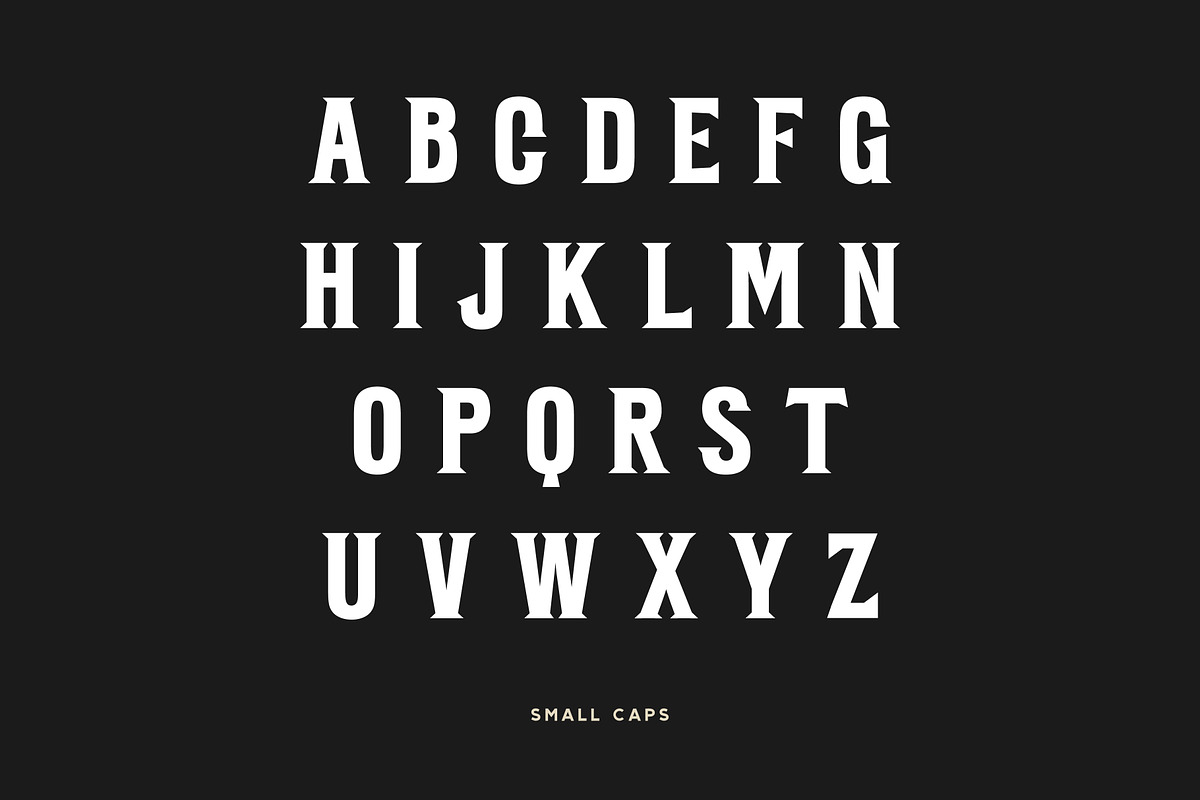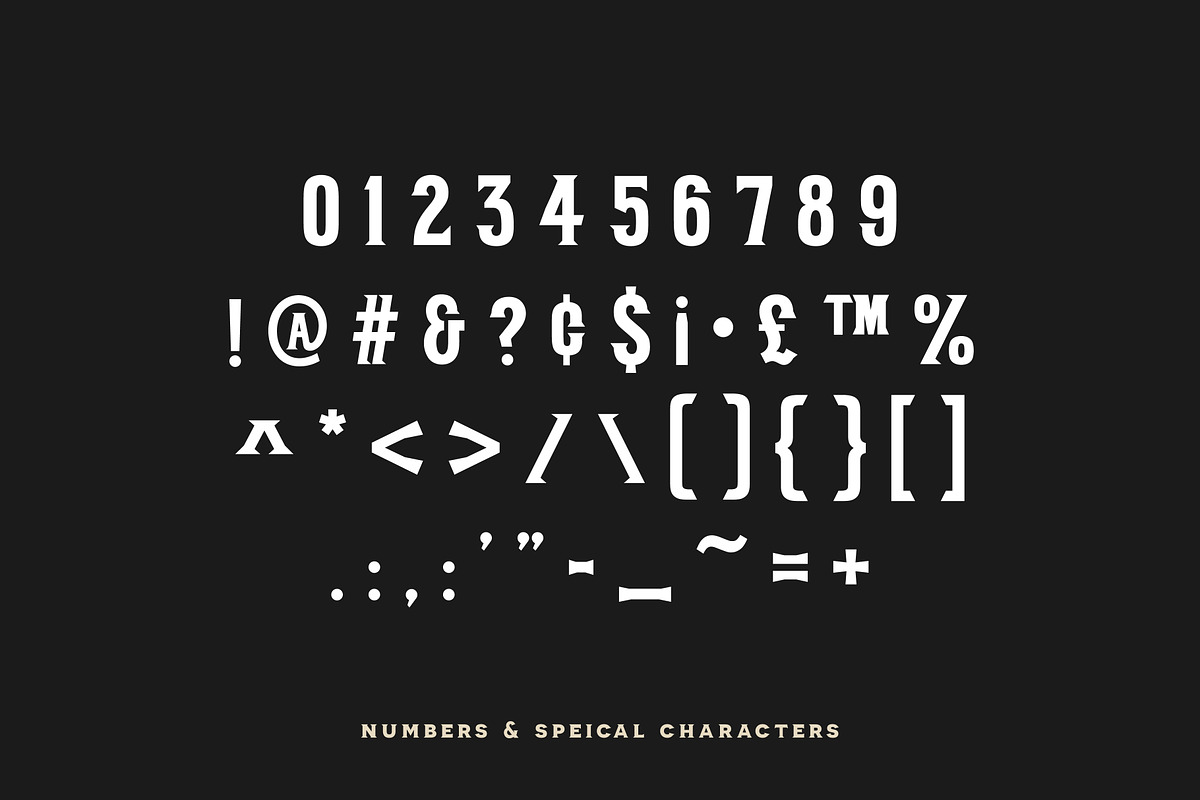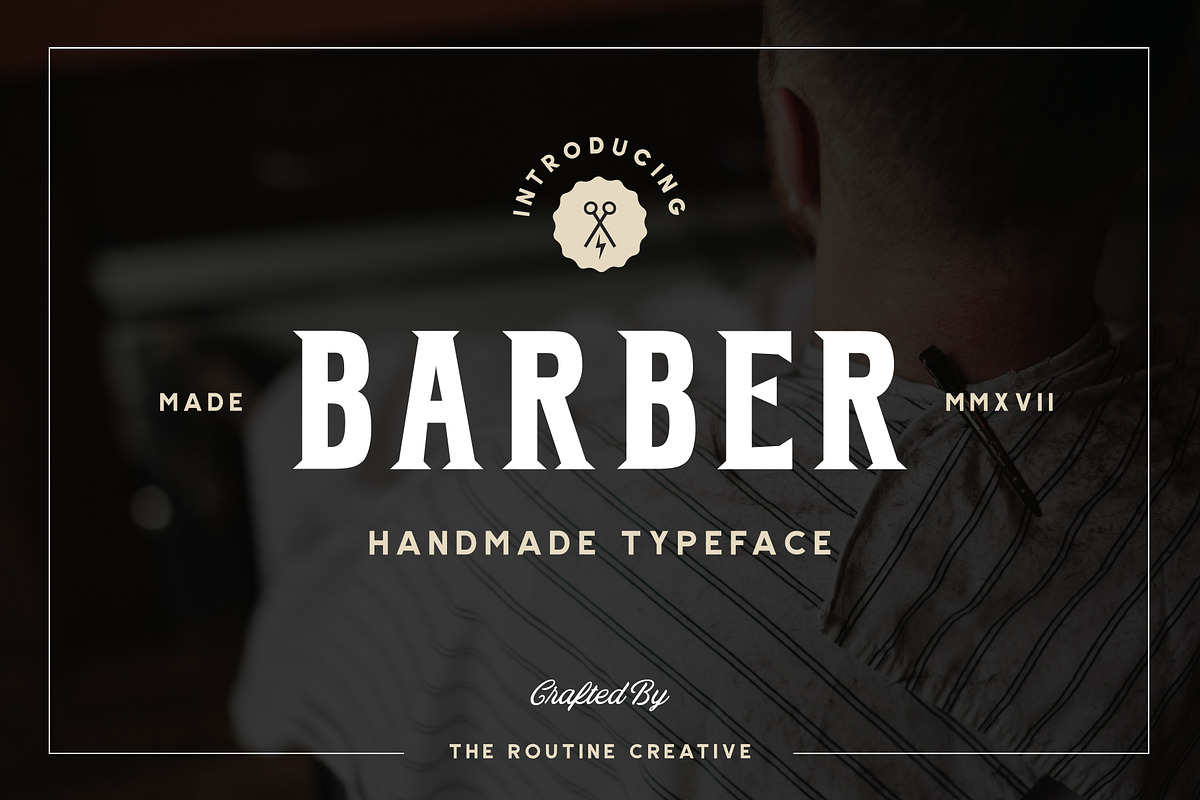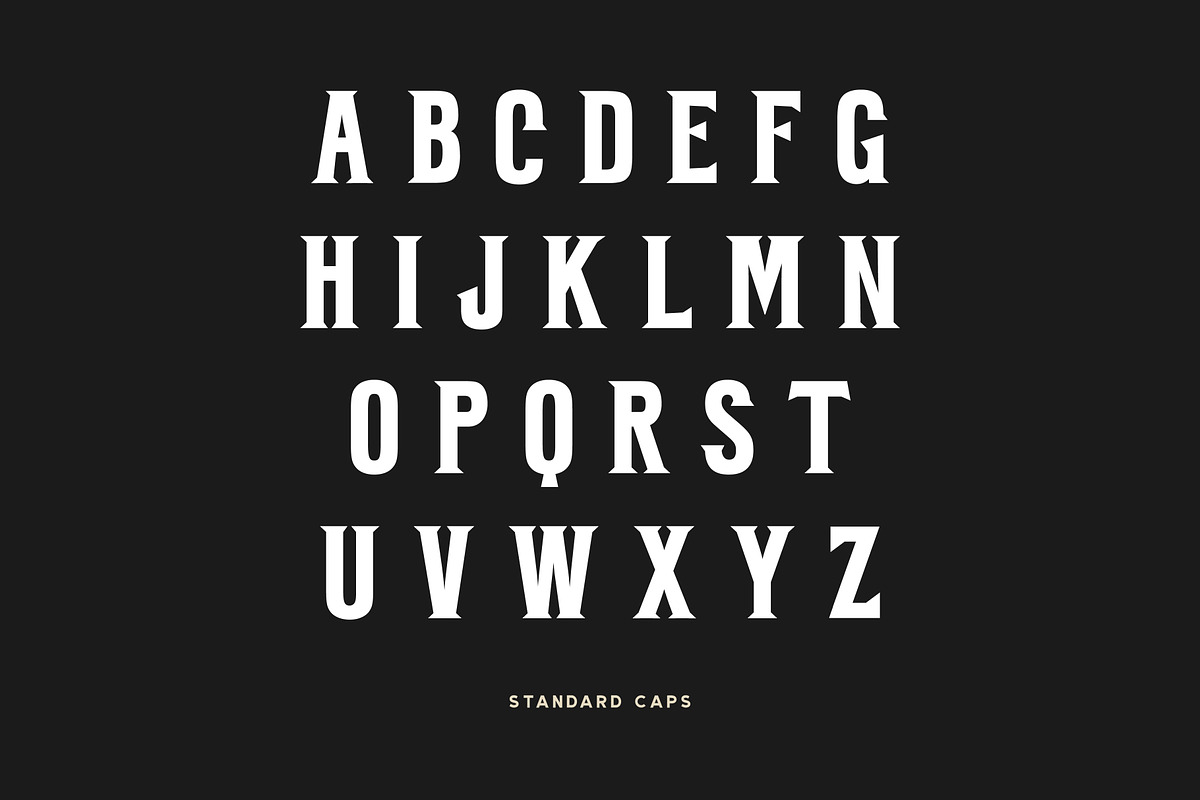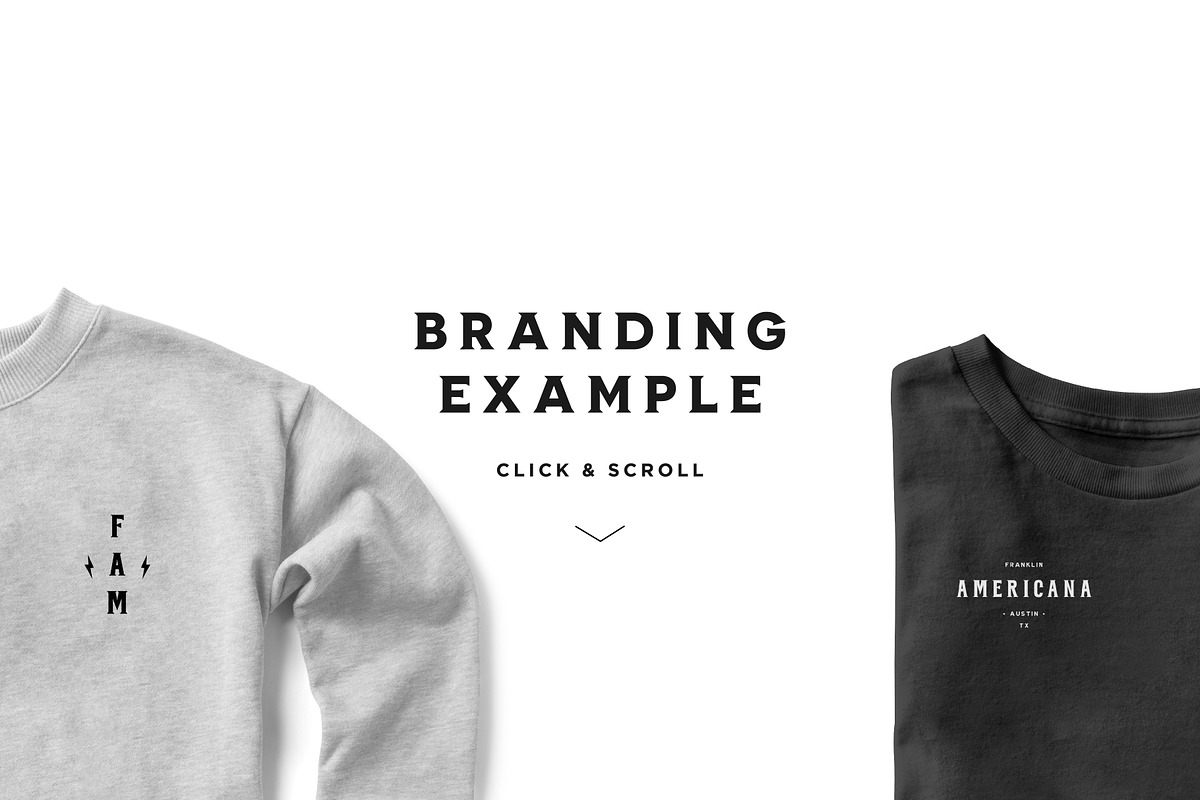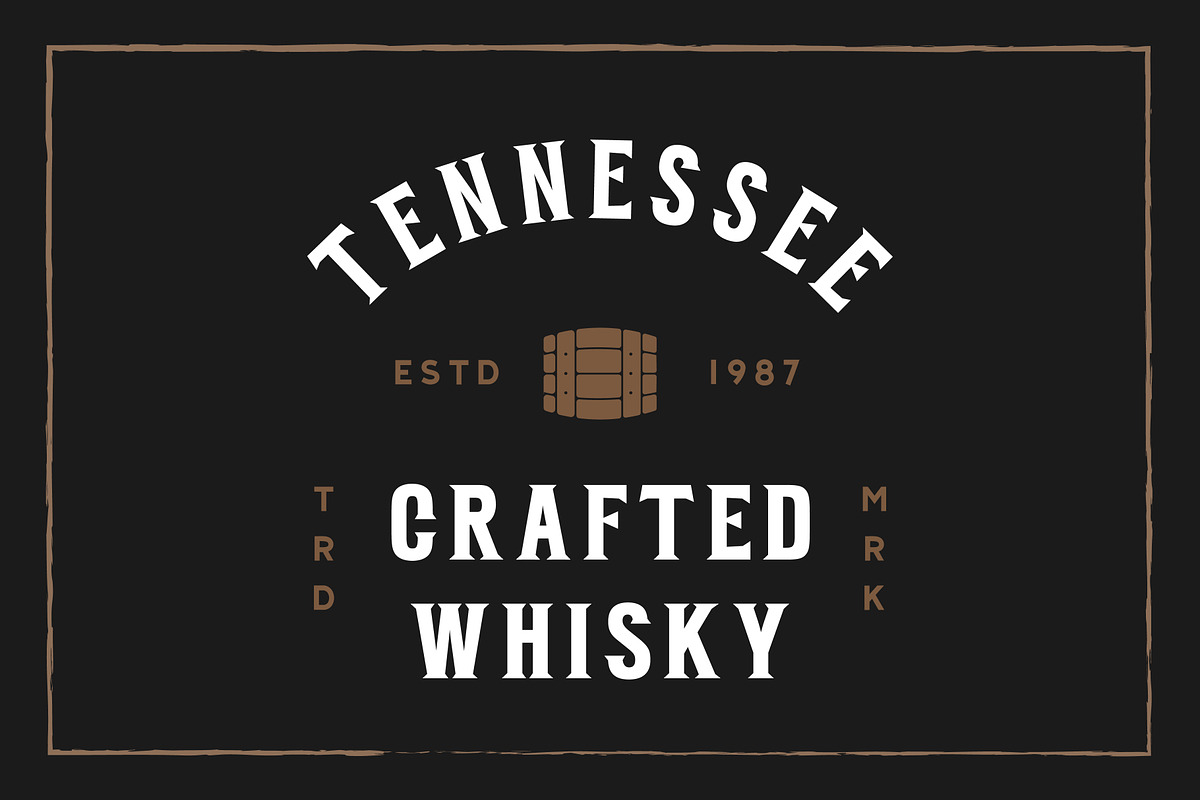
BARBER - Vintage Serif
BARBER
A masculine vintage display font with a modern flair. This condensed vintage serif font is inspired by barbershops. Perfect for logos and designers but really works well for all purposes.
THIS ENTIRE FONT IS CAPITALIZED
- Standard Caps
- Small Caps
- Special Characters